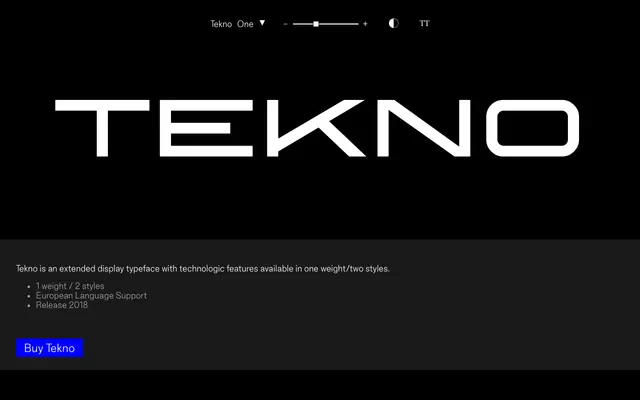
Tekno
Good Type Foundry · 2018
A single-weight extended display typeface with technological styling, released in 2018 with European language support across two styles.
Built for headline and display use, Tekno pairs an extended letterform with overtly technological detailing across one weight and two styles. The glyph set covers uppercase, lowercase, accented characters for European languages, numerals and a solid set of punctuation and symbols. A narrow brief executed with clarity, suited to titles, posters and branding where a digital or futuristic tone is needed.
An extended display typeface with explicitly technological styling, designed for headline use at large sizes with a single weight and two styles (presumably regular and italic or alternate). Fits squarely in the display category with a techno/sci-fi subcategory.